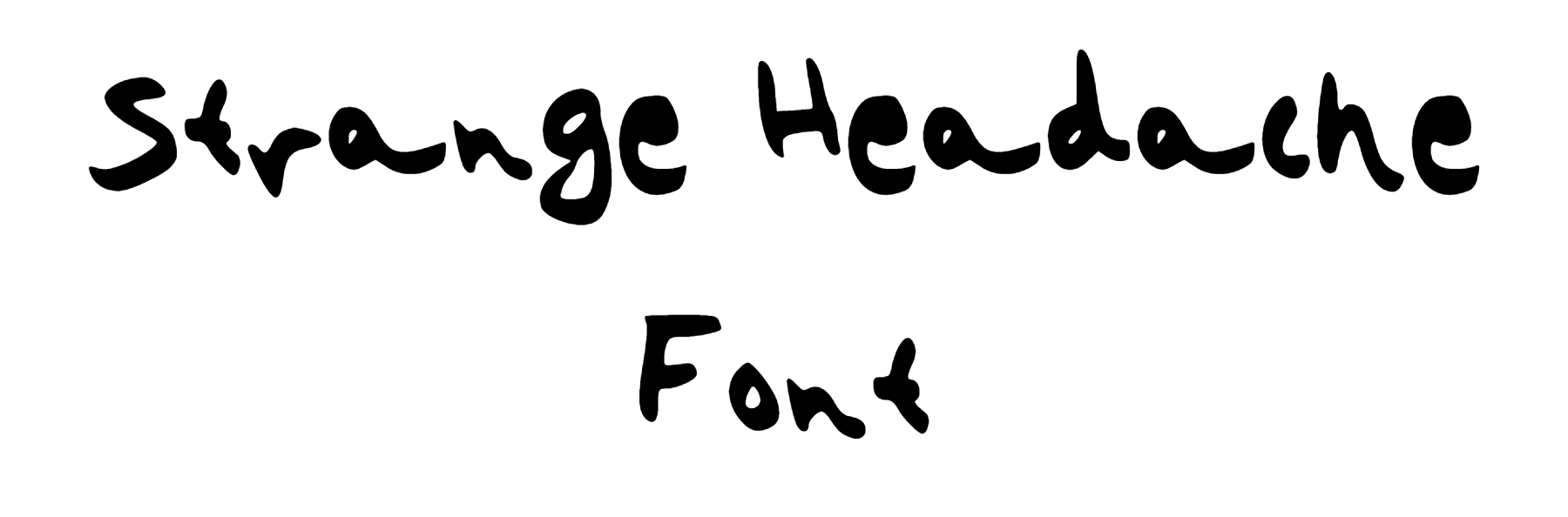
Strange Headache
Strange Headache is a fancy font (2009). It's a decorative display font with plenty of personality, made to grab attention. It's a free download, and you can try it with your own text in the preview above first.
You get every letter from A to Z in both cases and all the numbers from 0 to 9, which means Strange Headache can handle full sentences, dates and prices. Everyday marks like &, !, ? and @ are there too. Thanks to its accented letters, it also works for Spanish and German, not just English.
Strange Headache is a natural fit for posters, logos and eye-catching headlines. The file has no kerning data, so in logos and big titles check pairs like AV, To and Wa and tighten the spacing by hand. Use it for one standout word or headline and let simpler fonts handle the rest.
Yes. Strange Headache includes the accented letters needed for Spanish and German, so it works for more than just English.